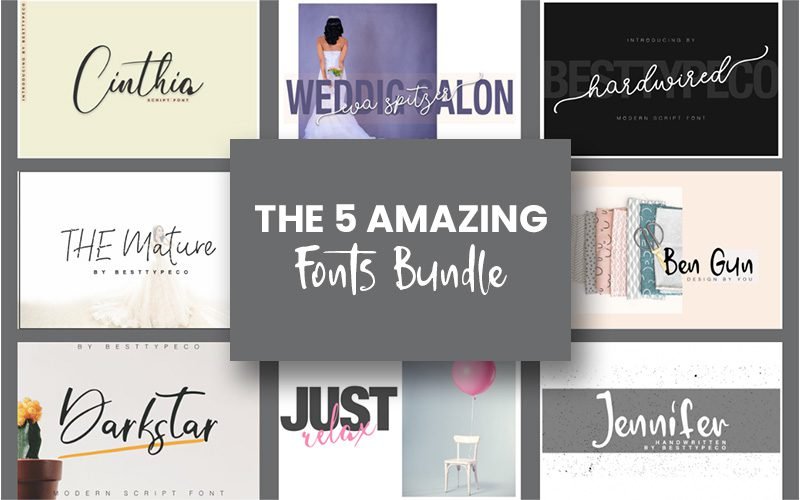
The amazing fonts in this bundle make it suitable for almost any design project, including greeting cards, blogs, magazines, branding materials, business cards, quotes, logos, posters, and more. Create almost any design that you can share with your audience.
Amazing Fonts Include:
Cinthia
Cinthia – a new, fresh, handmade calligraphy font.
This font suits greeting cards, branding materials, business cards, quotes, posters, and more!
Darkstar
Darkstar is a new handwritten font. This font works great for business cards, packaging, invites, greetings, quotes, posters, web-based creations, and merchandise.
Hardwired
Amazing handwritten font. Hardwired is suitable for greeting cards, branding materials, business cards, quotes, posters, and more! This font is perfect for wedding postcards. You can also create a unique design for your logo, blog, stationery, marketing, magazines, and more.
Mature
Jennifer
A unique font for quotes, posters, branding materials, logos, blogs, and stationery.